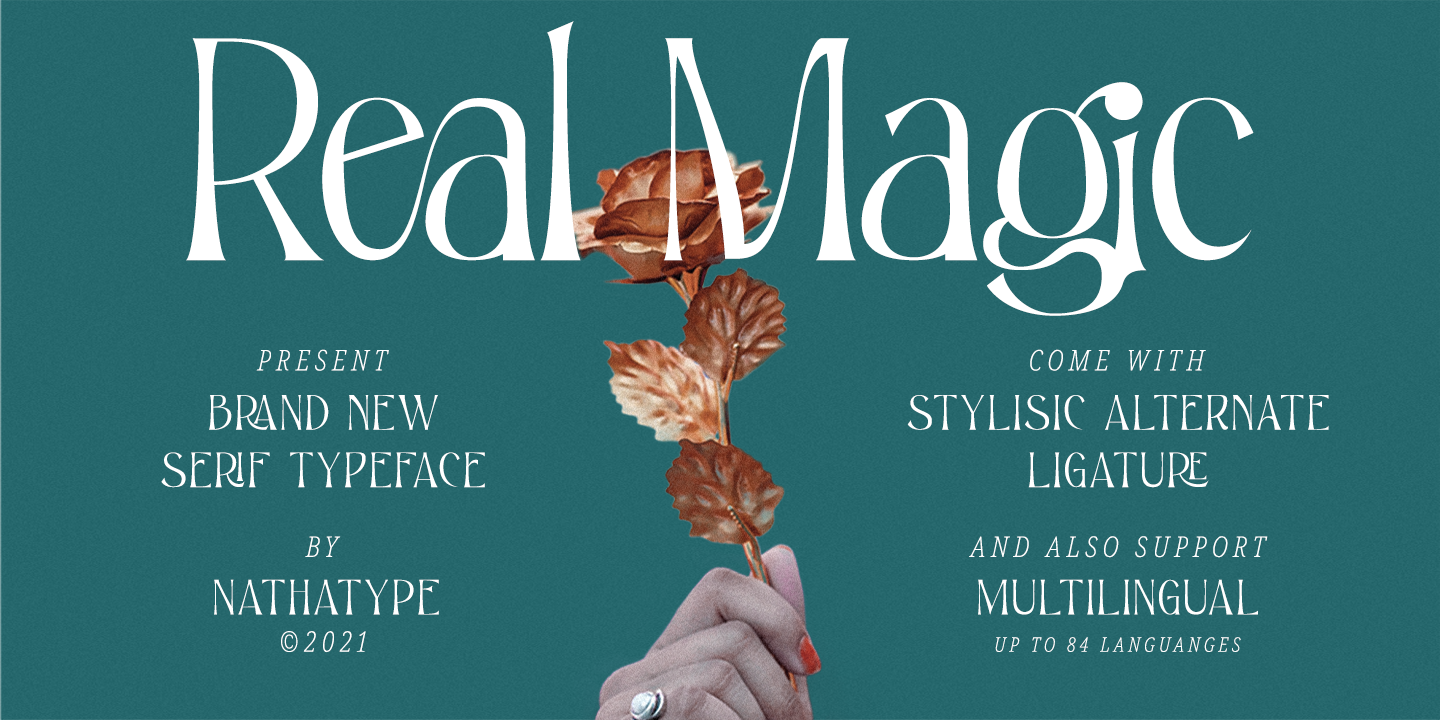
Real Magic Font Free Download is a whimsical, enchanting typeface that brings a touch of fantasy and wonder to your creative projects. Perfect for children’s books, fairy tale posters, invitations, branding, packaging, and magical event promotions, this font captures a playful, storybook feel with its charming, handcrafted letterforms. Real Magic Font adds warmth, imagination, and creativity to any design.
With Real Magic Font Free Download, you’ll receive a complete set of uppercase, lowercase, numbers, and essential punctuation, offering flexibility for both print and digital applications. Whether you’re creating themed party materials, custom merchandise, or enchanting social media graphics, this font ensures readability while delivering a magical, fun aesthetic.
Bring creativity and wonder to your designs with Real Magic Font Free Download. Its playful, magical style makes it a standout choice for projects that need charm, imagination, and a touch of fantasy.